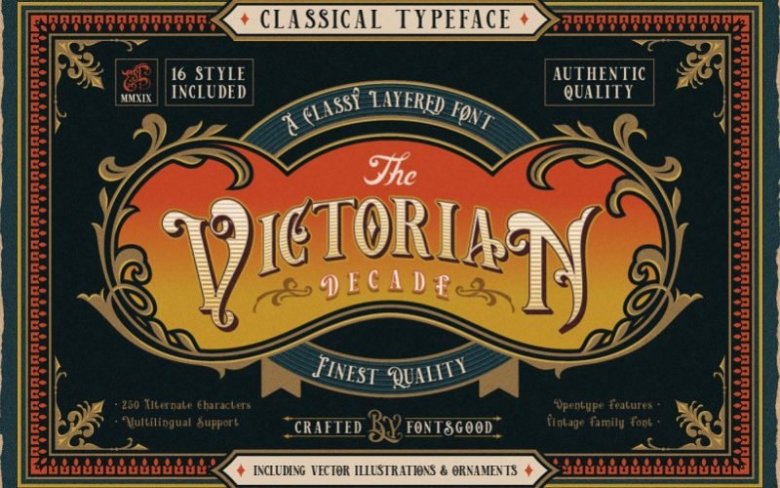
Victorian Decade Display Font
Who doesn’t love dimensional letters with artistic devices of optical illusionism and forced perspective from 19th century. Back in the day during the late Baroque period many of the most starling placards and signs—fascia lettering—where actually real three-dimensional letters made from wood, molded plaster, or cut metal, attached to or hung from a building. At this stage, decorative border and ornamental typeface really bring huge change to advertising industries. Dimensional typefaces have made all kinds of stories more visible.